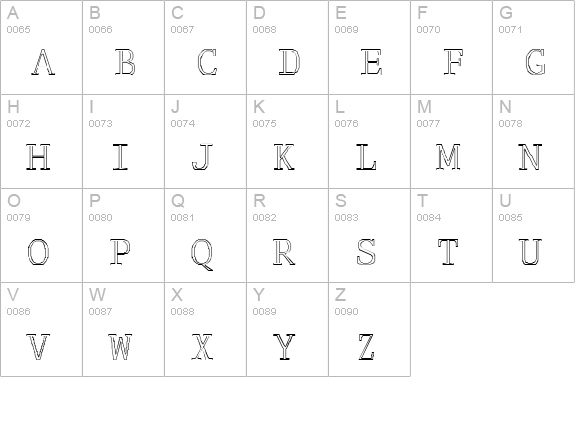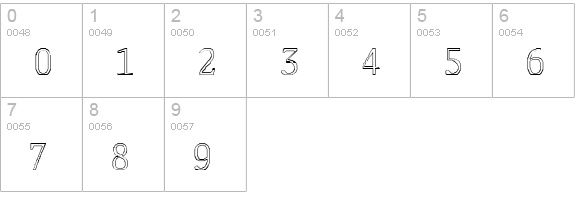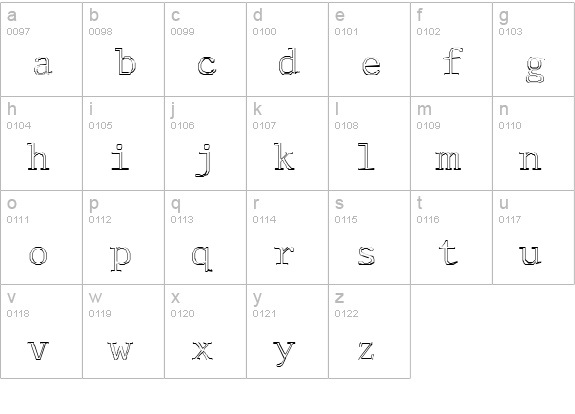
OutsiderOpen Font Details
OutsiderOpen font is a modern and stylish typeface that exudes creativity and uniqueness. Its bold and edgy design makes it perfect for eye-catching headlines, logos, and branding projects. The sleek lines and sharp angles of OutsiderOpen font give it a contemporary and dynamic feel, making it a standout choice for any design project. What sets OutsiderOpen font apart is that it is not only visually striking but also versatile and easy to read. Whether used in print or digital media, this font commands attention and delivers a strong visual impact. Best of all, OutsiderOpen font is free to download at FontsMarket.com, making it accessible to designers and creatives of all levels. With its bold design and easy availability, OutsiderOpen font is sure to become a go-to choice for your design projects.